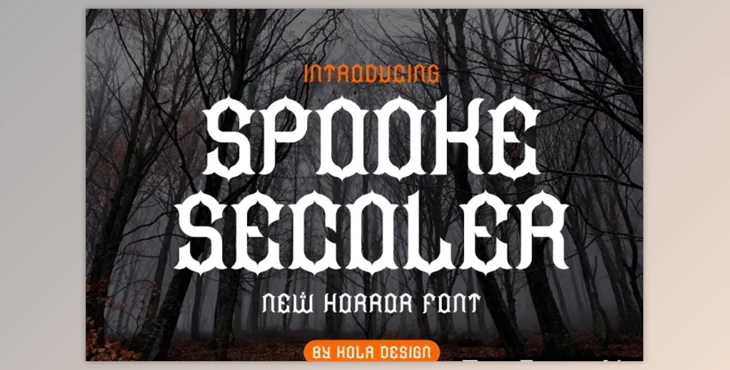
Spooke Secoler Font: Spooke Secoler Font is unique and poised for immediate use in various design applications. Whether you're working on labeling, movie scenes, posters, movie titles, gigs, album covers, logos, or more, this font is tailored to enhance your creative projects.